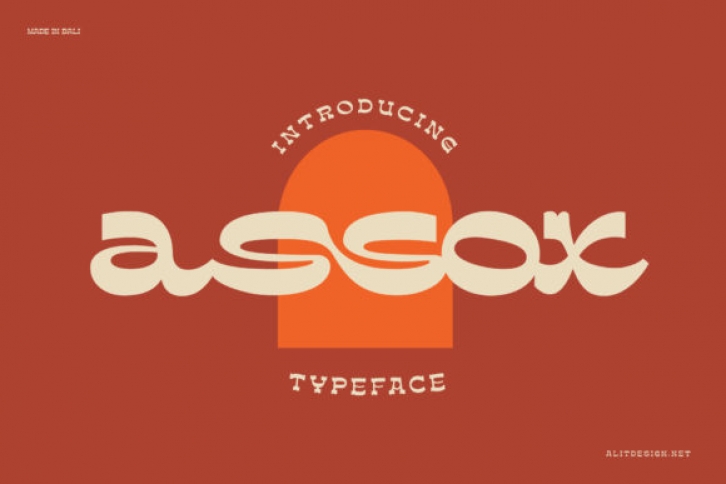
Assox is a cool, organic, vintage styled display font. Whimsical and a bit quirky, this font will brighten up each of your designs. Add it confidently to your projects, and you will love the results.